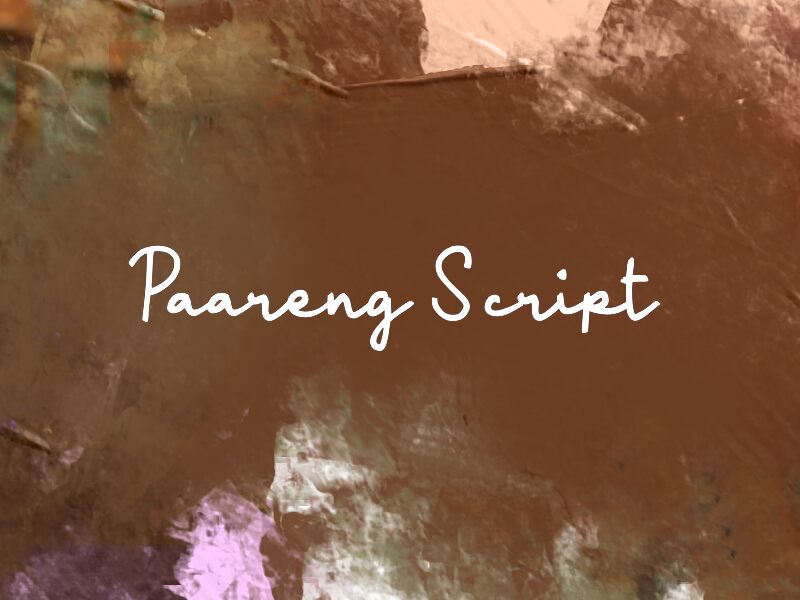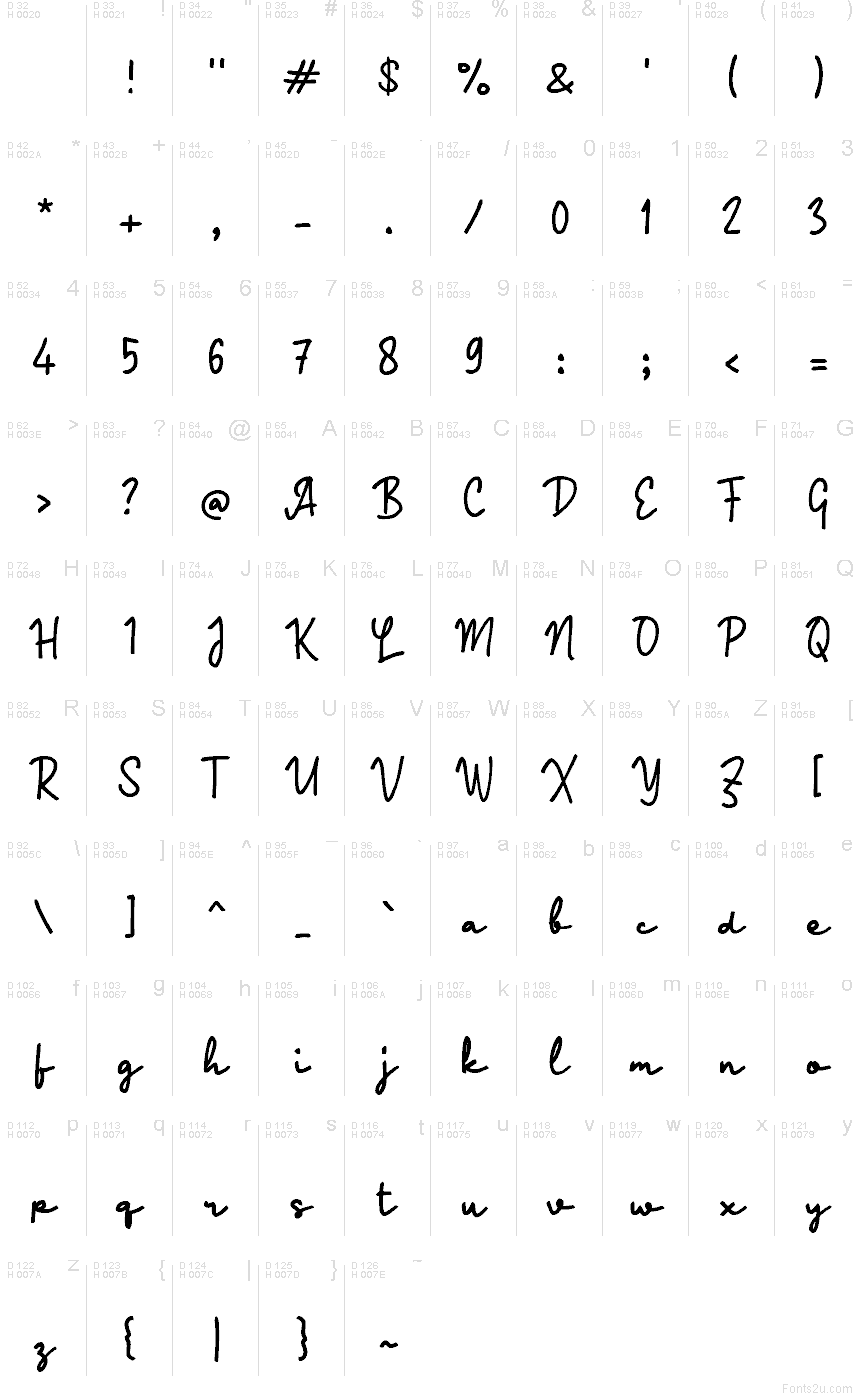
Paareng Script
Paareng Script font by wep is a free handwritten font that captures the look of quick, confident pen strokes without sacrificing clarity. Its smooth, slightly bouncy letters feel like they were jotted in a favorite notebook—casual, but not messy. The consistent line weight and roomy spacing make it easy to read at both small and larger sizes, so it keeps that relaxed, personal tone without turning into a squiggle.
Using Paareng Script, you can add a warm, human touch to social media graphics, quote posts, greeting cards, packaging, logos, and friendly website headers. This free font shines when you want handwriting that feels real yet stays clean and organized. Pair it with a simple sans serif for body text, and let Paareng Script handle titles, names, and short phrases that need personality.